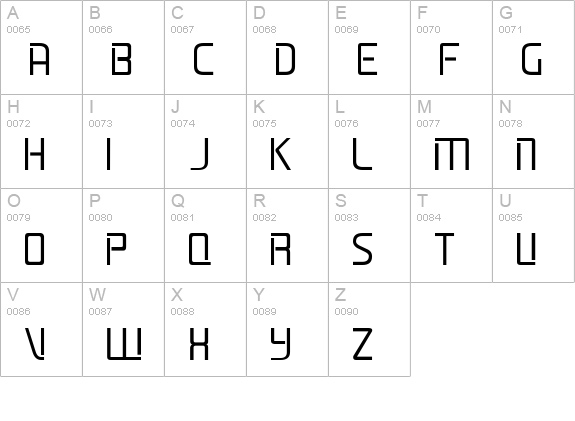
Lifeline JL Font Details
Lifeline JL font is a modern and stylish typeface that exudes sophistication and elegance. With its sleek lines and contemporary design, this font is perfect for a wide range of design projects, from branding to print materials. The unique characters and distinctive style of Lifeline JL font make it stand out from the crowd and add a touch of class to any design. The best part? Lifeline JL font is available for free download at FontsMarket.com. Now you can add this beautiful font to your collection without breaking the bank. Whether you're a designer looking for a fresh new font to use in your projects or just someone who appreciates good typography, Lifeline JL font is sure to impress. Download it today and start creating stunning designs with this versatile and eye-catching typeface.